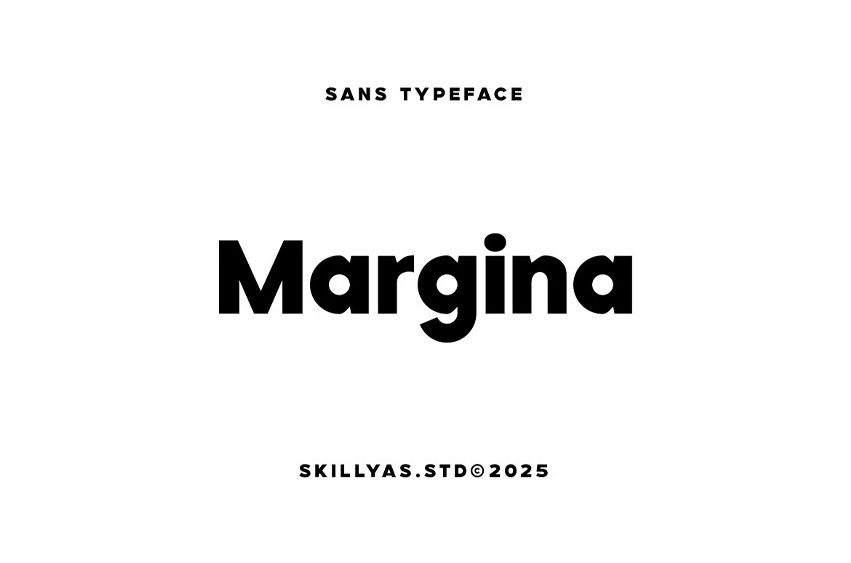
Margina Font
Margina Font is a Bold and Modern Sans-Serif Font Designed for Clarity and Impact. Ideal for Branding, Headlines, Posters, and Digital Design, it delivers a strong presence with a clean, contemporary look.